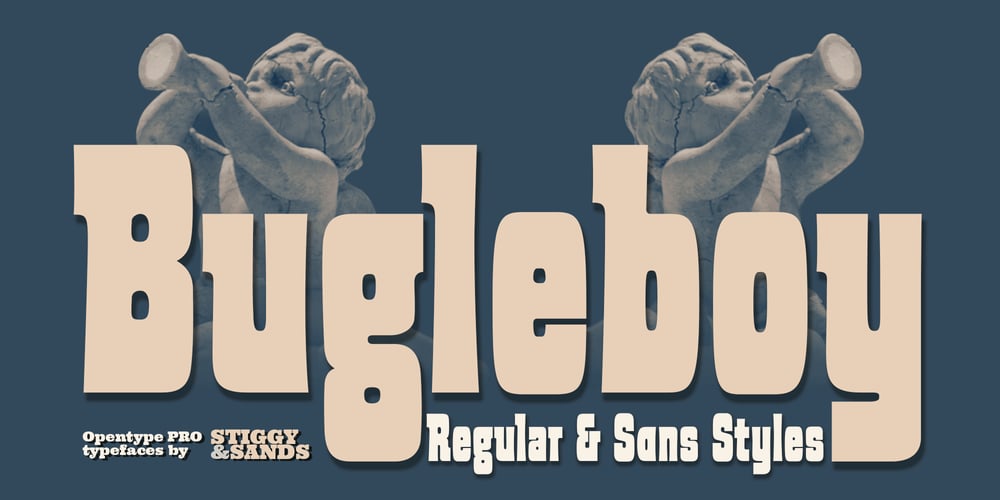
Bugleboy Font Family was designed by Jim Lyles, Brian J. Bonislawsky and published by Stiggy & Sands. Bugleboy contains 4 styles and family package options. Bugleboy started as a digitized version of “Wood Grotesk,” a 1970s film typeface by LetterGraphics. It started with a bare bones character set which we added swash alternates for Capitals, Stylistic Alternates for a Unicase look, and crafted a Sans version without serifs. The Sans style lacks swashes but keeps Stylistic Alternate Unicase forms.See the last graphic for a comprehensive character map preview.